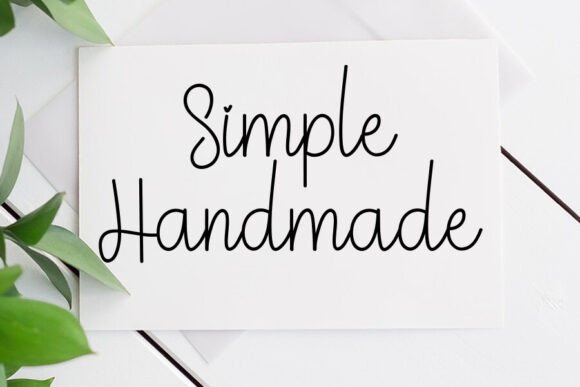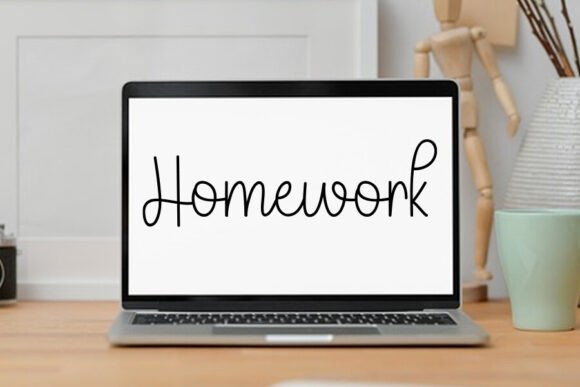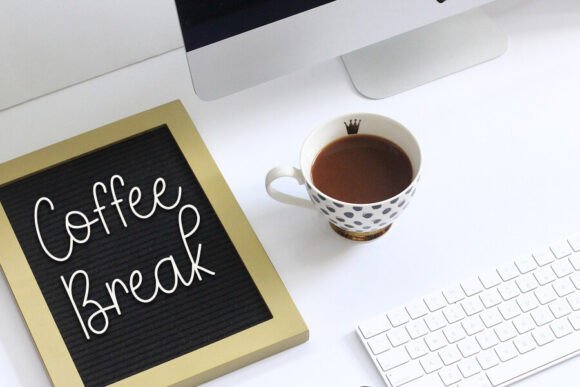
Introduction to Hiding Font
As a designer, there’s nothing quite like the thrill of bringing a creative project to life. The blank canvas stares back at you, waiting for your unique touch. It’s in these moments that you crave a font that truly stands out – something with a personality that’s as charming as it is timeless. That’s where the Hiding Font comes in – a lovely, handwritten masterpiece that’s sure to captivate your audience.
With its high-quality, intricate details, the Hiding Font is the perfect choice for designers looking to add a touch of elegance to their work. Whether you’re crafting a logo, branding, or simply a beautiful quote, this font is sure to elevate your design to new heights. And the best part? It’s available for a free download, making it an invaluable resource for any designer looking to take their work to the next level.
But what truly sets the Hiding Font apart is its versatility. From transparent backgrounds to bold, eye-catching designs, this font is the perfect tool for bringing your creative vision to life.
Hiding Font
- High-quality font with a unique, creative design, perfect for any project.
- Comes in a transparent background, allowing for seamless integration with any design.
- Unique characteristics include a custom-designed alphabet, numerals, and punctuation marks.
- Designed to be highly legible, making it an excellent choice for body text and headings in any creative project.
Honest Review: Hiding Font
I recently came across Hiding Font, a unique font that caught my attention with its creative design and transparent background. As a designer, I’m always on the lookout for high-quality design resources to elevate my projects.
Hiding Font is perfect for designers who want to add a touch of sophistication and elegance to their creative project. The font is available for free download, making it an excellent choice for designers on a budget.
- ✨ Unique design: Hiding Font stands out with its creative and intricate design elements.
- ✨ Transparent background: The transparent background allows for seamless integration with other design elements.
However, I did encounter a few limitations while using Hiding Font:
- ⚠️ Limited font sizes: The font may not be suitable for large-scale projects where multiple font sizes are required.
- ⚠️ Limited compatibility: I encountered some issues with compatibility on certain devices.
Overall, I’m impressed with Hiding Font’s unique design and transparent background. While it has its limitations, I would still recommend it as a valuable design resource for creative projects.
Hiding Font
In PowerPoint and Word, Hiding Font is useful for creating presentations and documents with a clean and minimalist design. To use it, select the text element you want to hide the font for, then go to the “Home” tab and click on the “Font” dropdown menu. From there, select the “None” option to remove the font. You can also use the “Format” tab to adjust the font size and color to create a transparent background effect.
When using Hiding Font, keep in mind that it can be used to create a variety of design effects, from simple to complex. Some common use cases include creating a minimalist logo, designing a brochure with a transparent background, or adding a creative touch to a presentation. To get the most out of Hiding Font, experiment with different font sizes and colors to create a high-quality design resource.